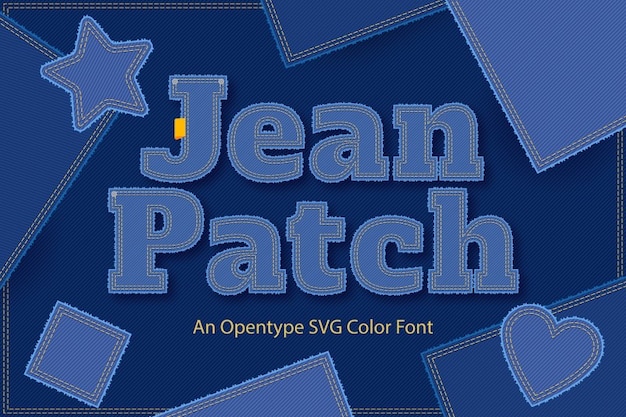
Jean Patch: Unleash your creativity with the rugged charm of Jean Patch! This decorative font stitches together a rustic tapestry reminiscent of well-worn denim. Each letter is a patchwork of creativity, blending the rugged spirit of jeans with a touch of artistic flair. Whether you're aiming for a DIY vibe, crafting a vintage-inspired design, or adding a denim twist to your projects, Jean Patch's unique character creates a seamless fusion of the creative and the classic. Bring the timeless allure of denim to your typography and let your designs showcase the enduring coolness of Jean Patch.